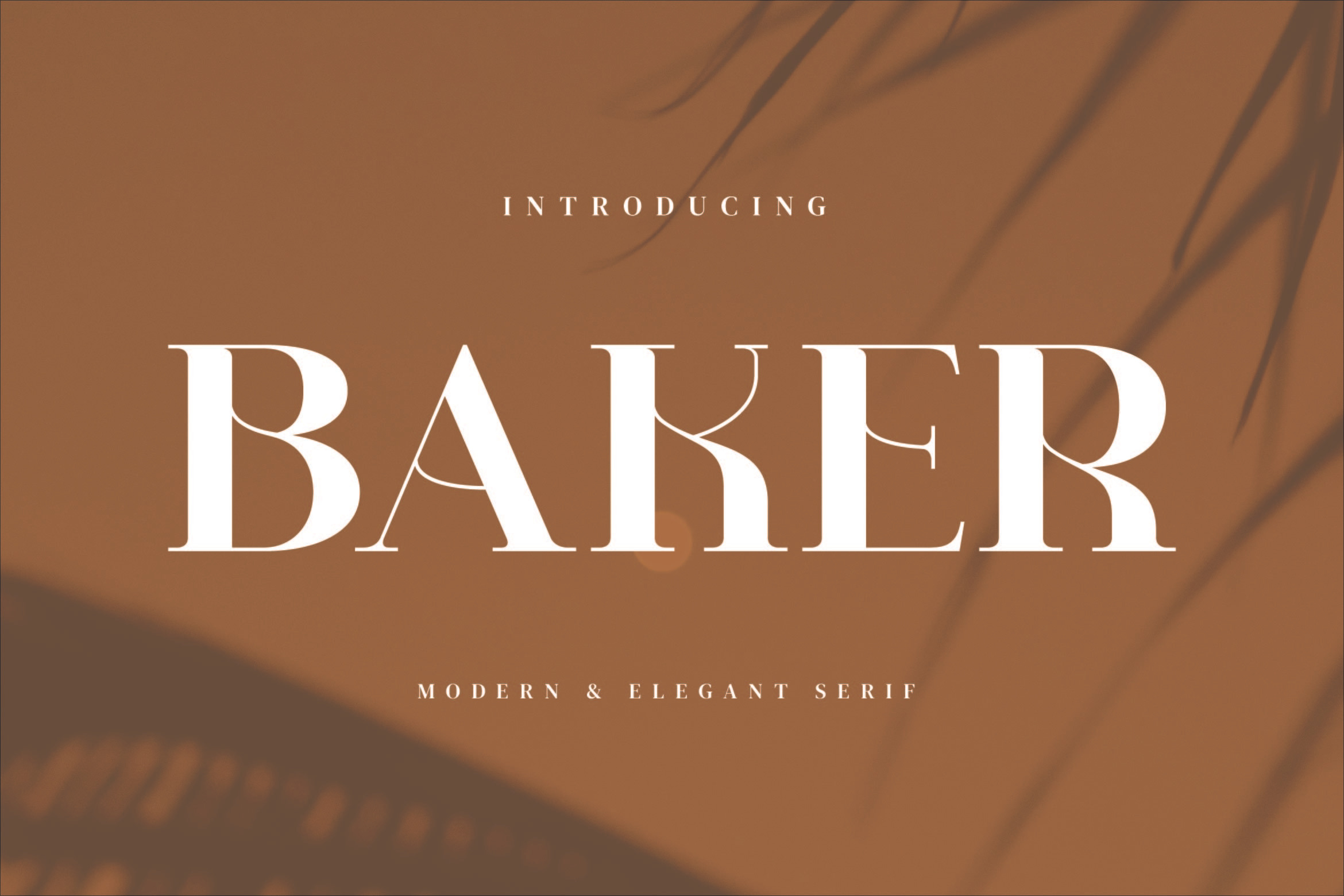
Baker - Stylish Serif Font
Baker Stylish Serif Typeface, inspired by the famous minimalist logo perfect for the purposes of designing templates, brochures, videos, advertising branding, logos and more.